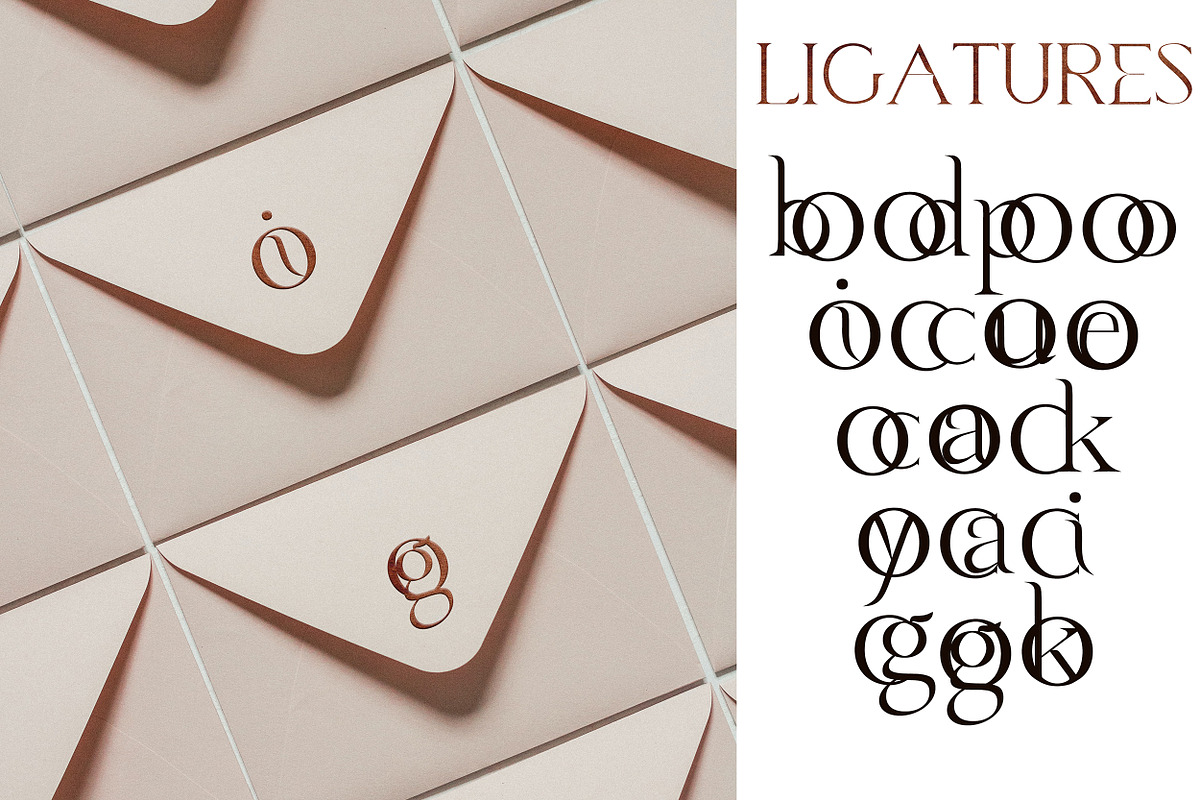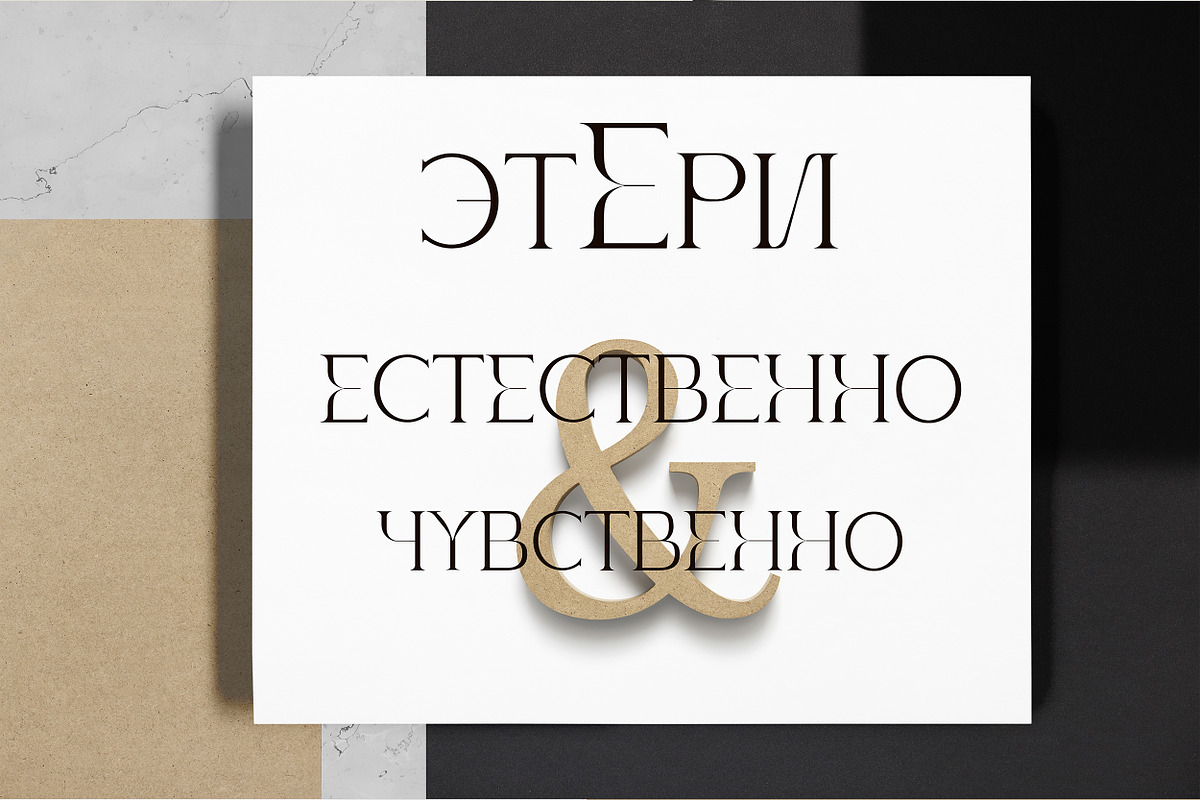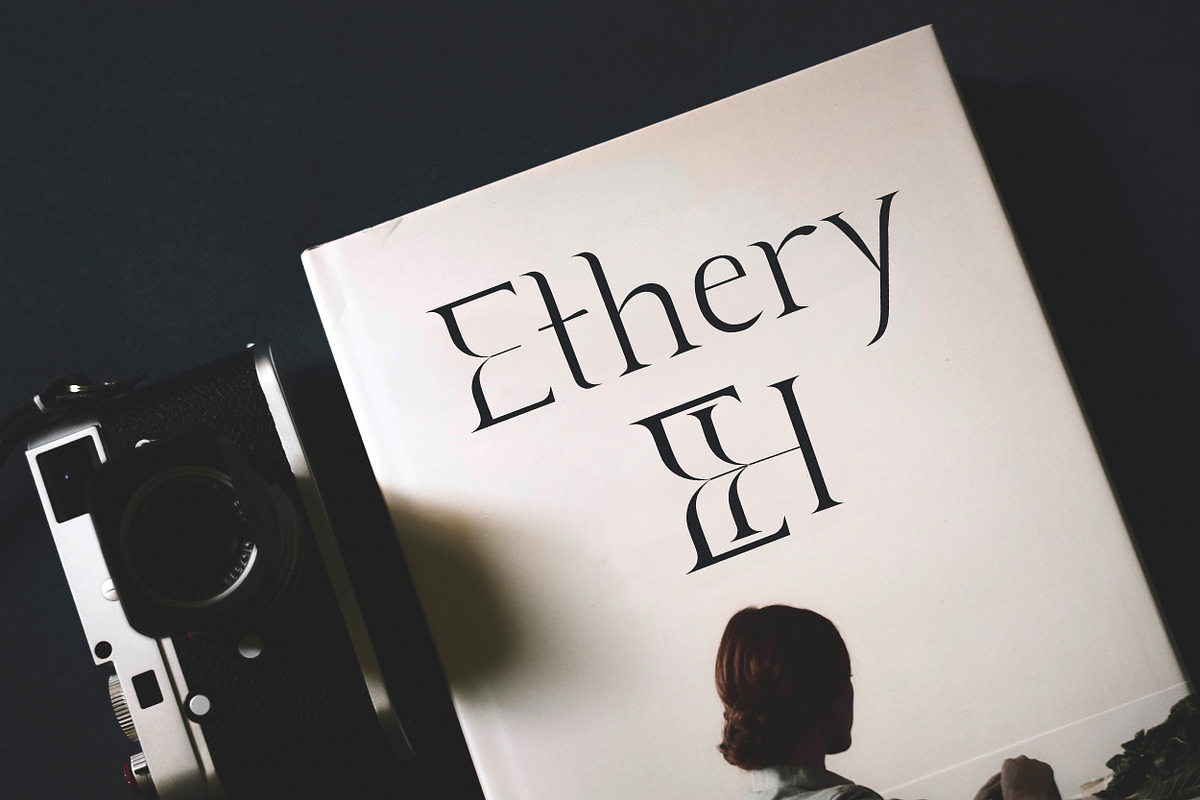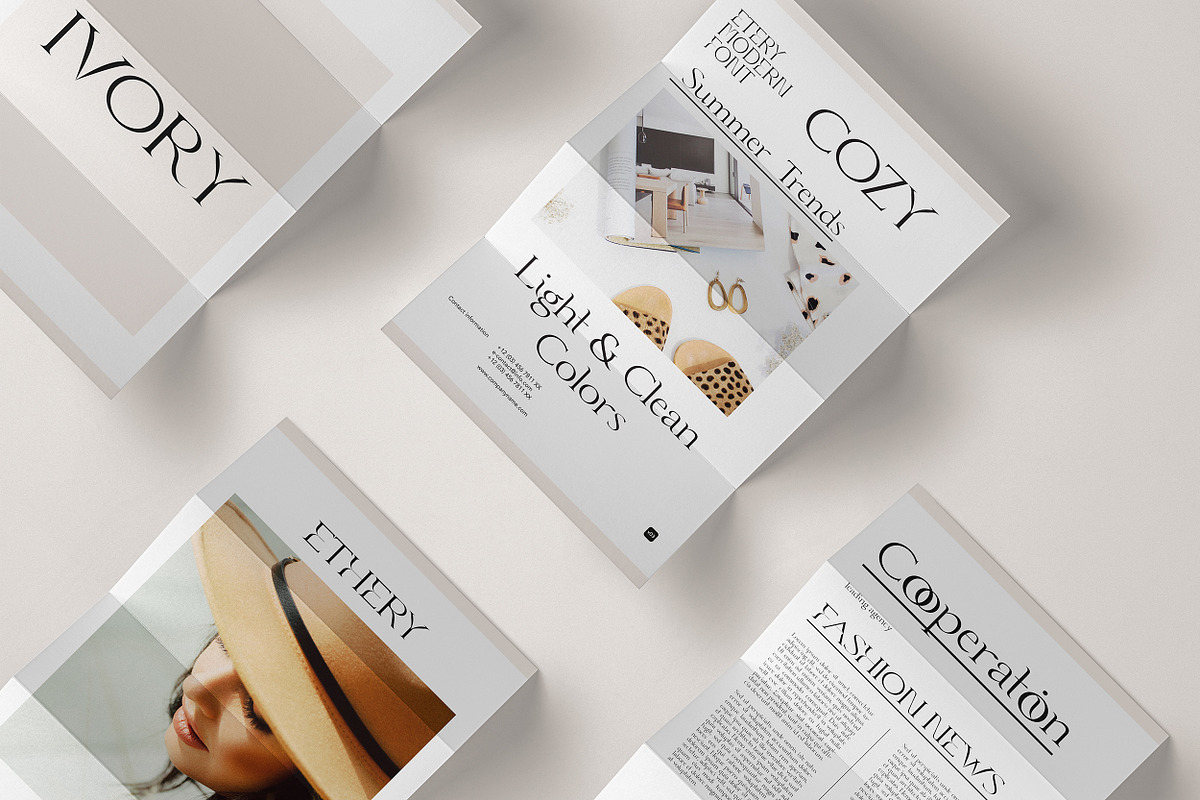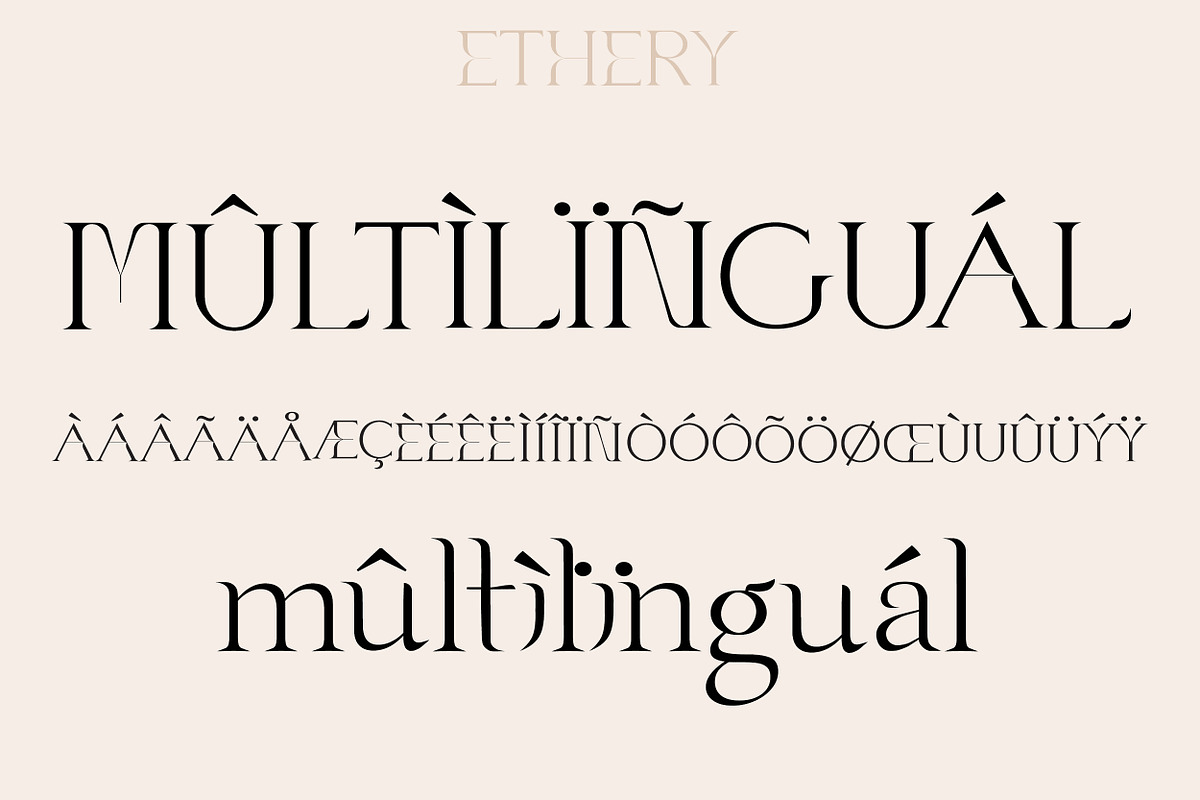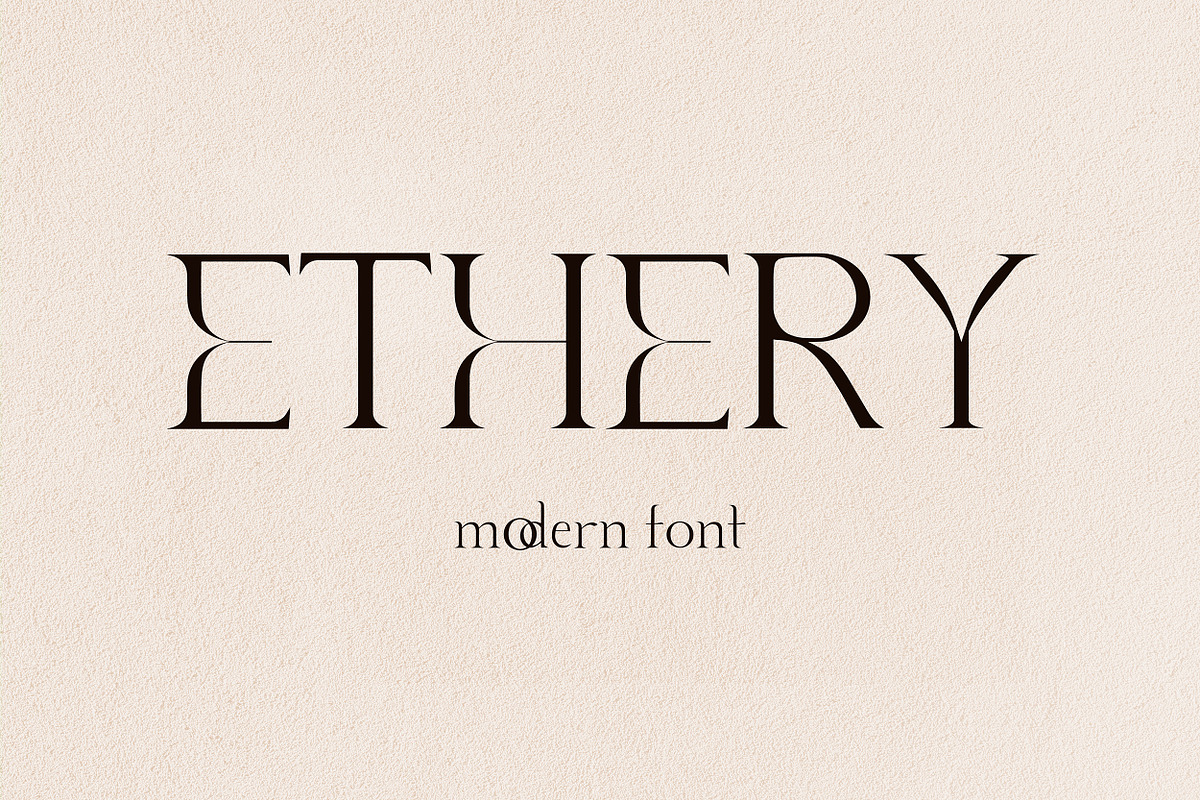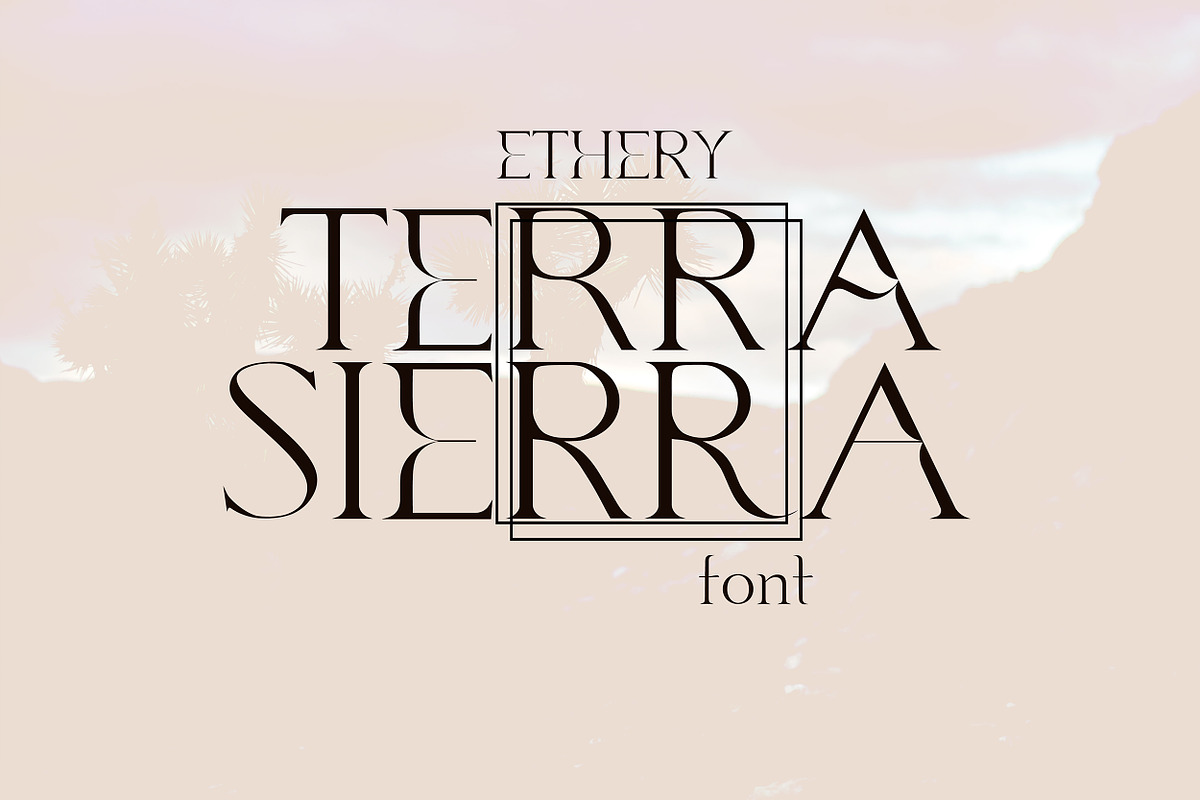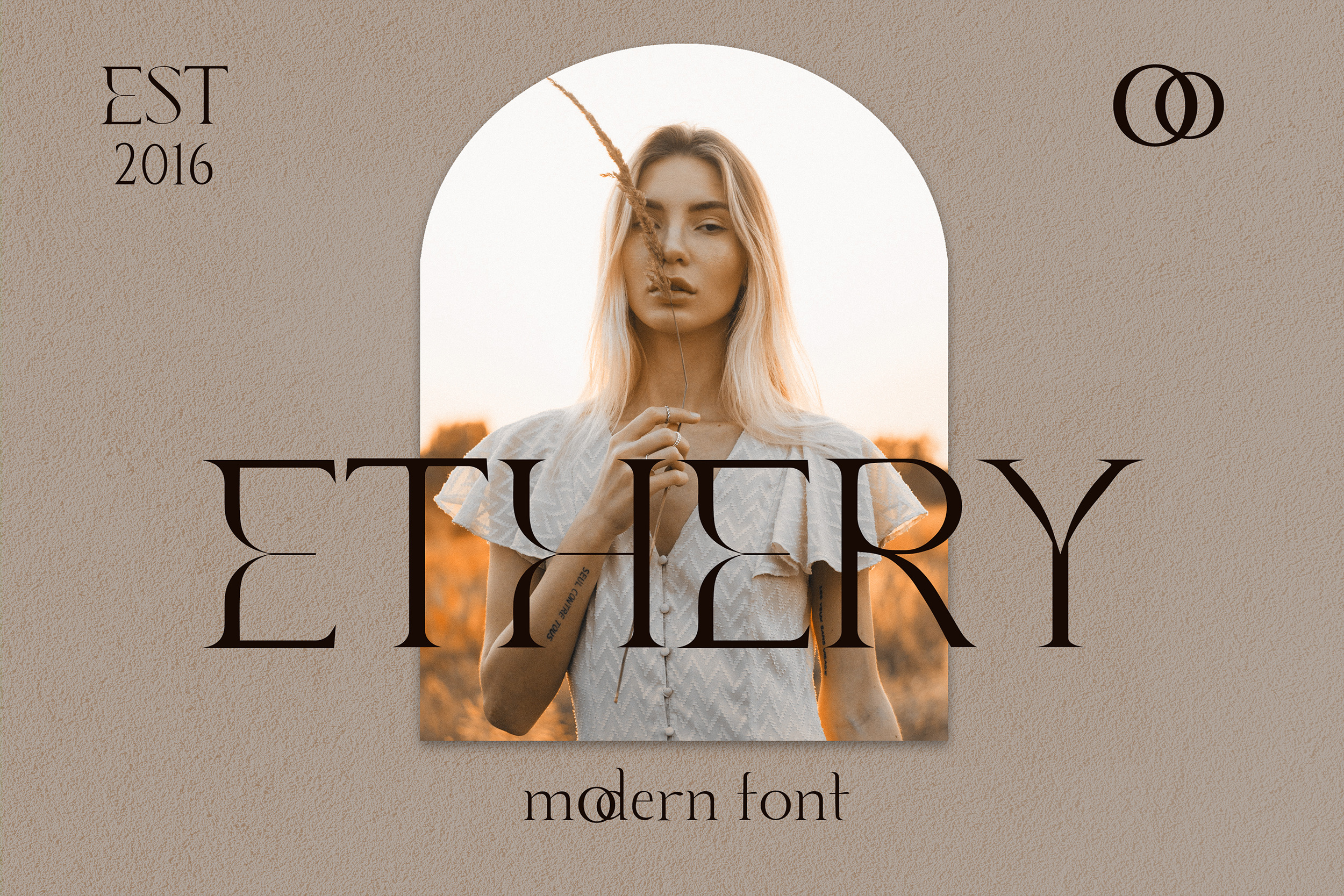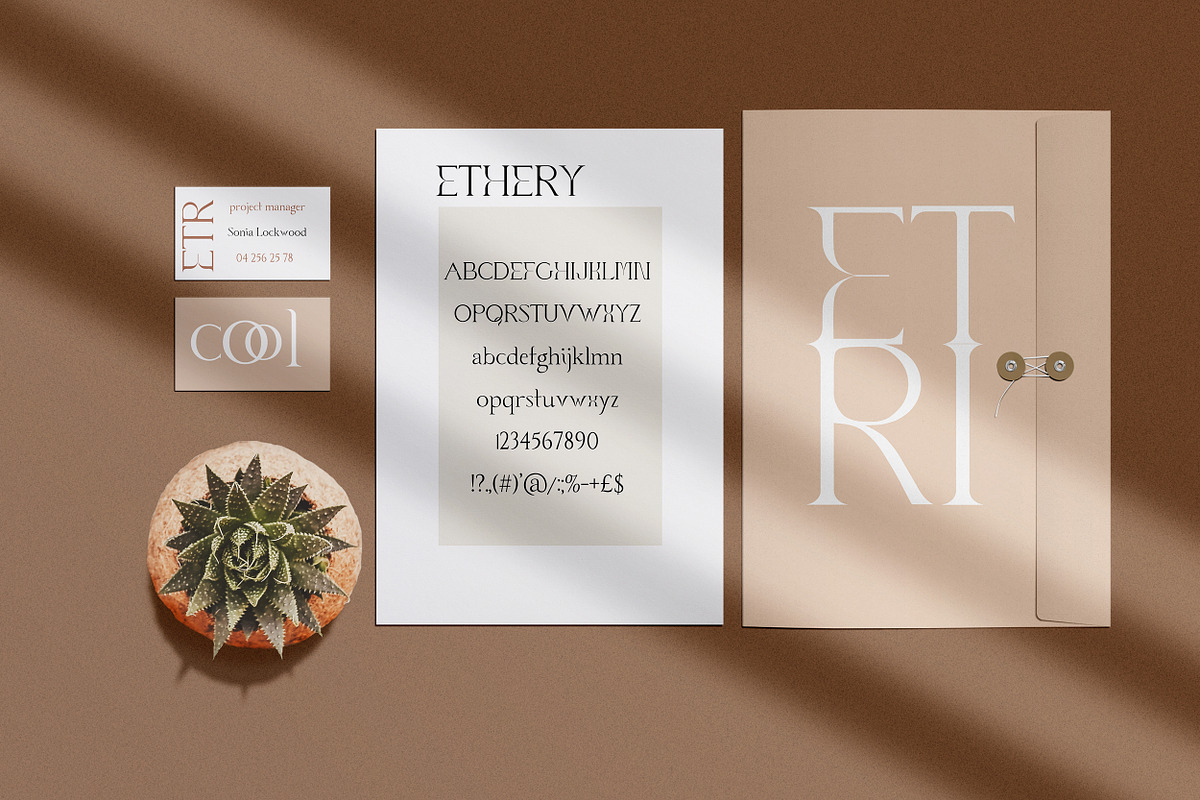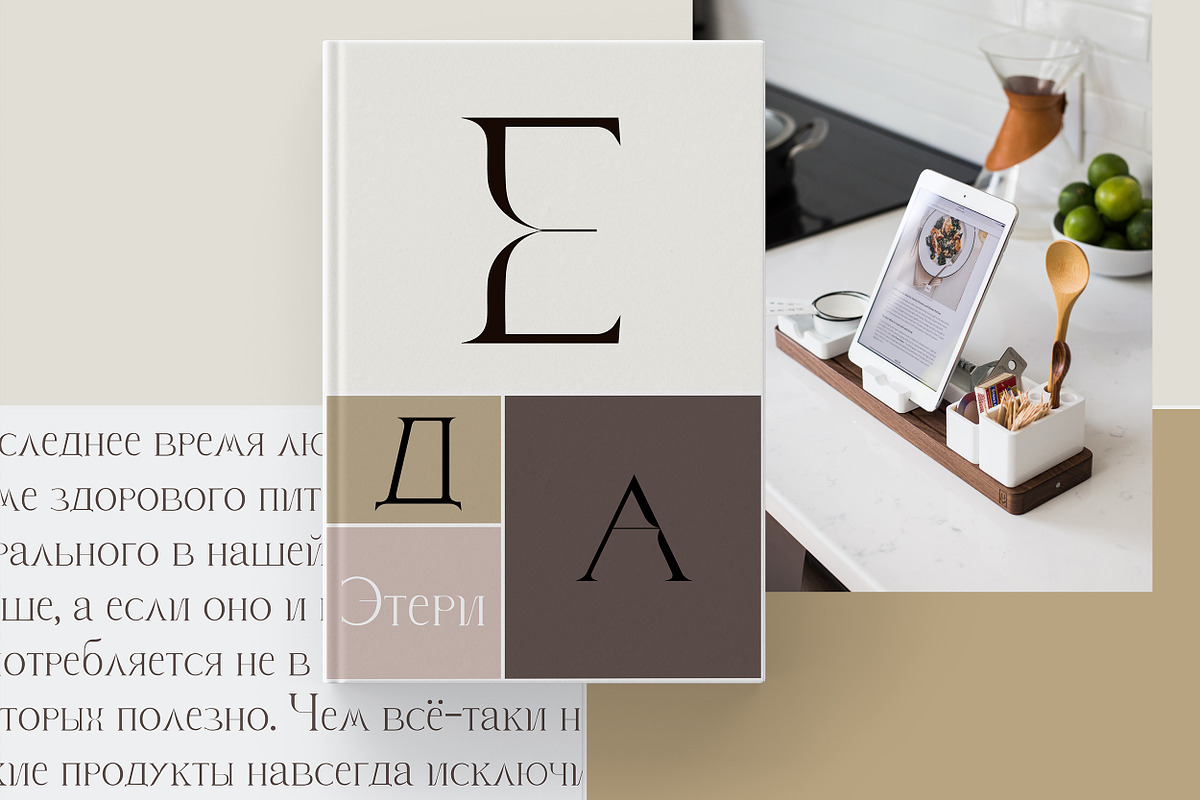
Ethery Modern Serif Font
Ethery. Decorative modern serif font with a unique style.
UPDATED: CYRILLIC
Elegant & Refined modern font.
Geometric and stylish, this font is ideal for creating logon and branding. With original ligatures.
It works perfect for creating stylish logos, striking editorials, invitations, graphic quotes, and more.
Uppercase Characters Lowercase Characters Discretionary Ligatures
Multilingual support for various languages